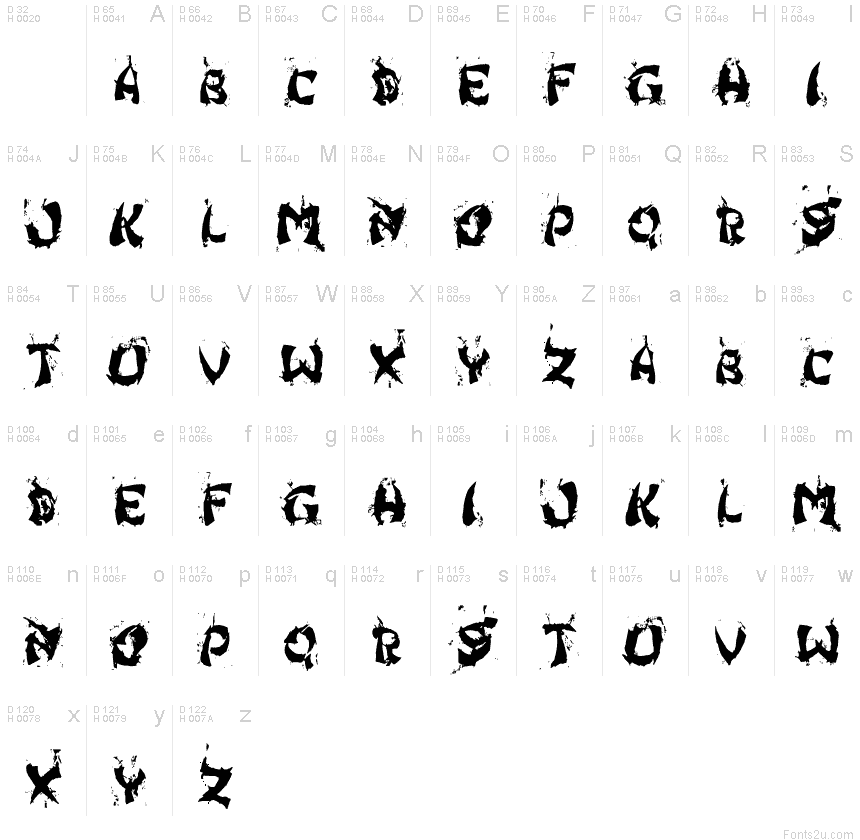
Hong Kong Fist Fuck
Hong Kong Fist Fuck font by Rob Dobi is a free distorted display typeface that hits the page like a splattered ink punch. Each letter feels hacked out of black paint, with torn edges, stray droplets, and an uneven rhythm that screams chaos and noise. It’s messy in a deliberate way, giving your layouts a raw, hand-made energy that’s hard to fake with clean vector shapes.
Using Hong Kong Fist Fuck, you can push horror posters, punk or metal flyers, skate zines, streetwear graphics, game titles, and gritty YouTube thumbnails into full-on abrasion mode. This free font thrives at oversized headline scales, where the jagged silhouettes and scattered debris really show. For balance, pair it with a small, neutral sans serif for captions so the wild texture stays readable and your message still lands.